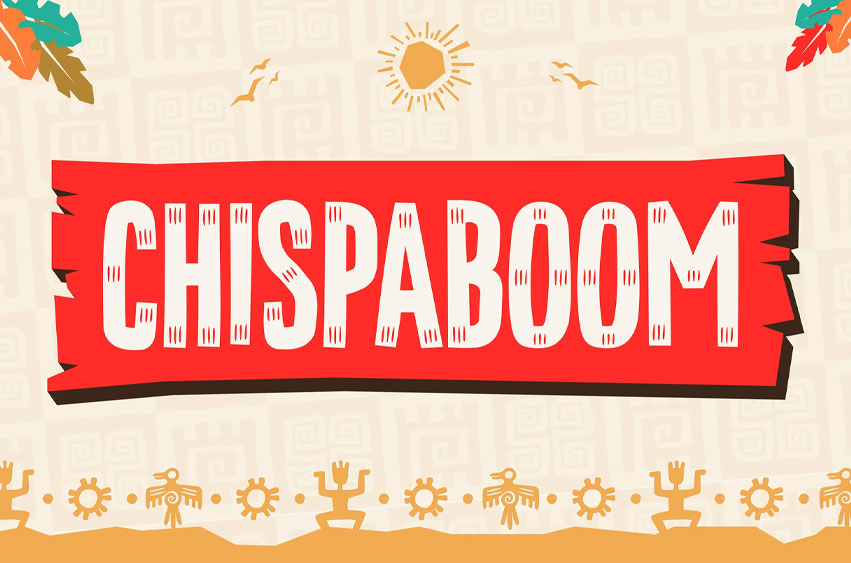
Chispaboom Font is a playful font for children’s branding that infuses projects with energetic vibes through its rounded edges and bouncy baseline, evoking the carefree spirit of childhood adventures. This font carries a fun, vibrant vibe perfect for kids’ market contexts like educational apps or family-oriented Instagram posts, featuring a geometric yet expressive letterform structure with soft curves for visual appeal. Clear use cases include social media graphics, packaging for toys, and event posters where its bold presence captures attention without overwhelming young audiences.
In the world of kids’ books, posters, and branding, CHISPABOOM stands out by delivering a kid-friendly tone that sparks joy and curiosity, helping designers create attention-grabbing headlines or whimsical illustrations that resonate with parents and educators seeking to foster creativity and cultural exploration in everyday projects.
- Energetic and Expressive Design : CHISPABOOM solves the challenge of bland children’s typography by offering bold, rounded forms that add movement and personality, making it ideal for marketing professionals aiming to enhance engagement in educational materials or festival promotions.
- Bouncy Baseline for Playful Flow: Ensures text feels alive and dynamic, perfect for headlines that need to pop in kids’ apps or storybooks.
- Cultural Theme Compatibility: Supports diverse motifs like festivals or adventures, aiding branding experts in creating inclusive, vibrant designs.
- High Readability at Large Sizes: Enhances display use in posters and packaging, helping designers achieve clear, fun communication without sacrificing style.